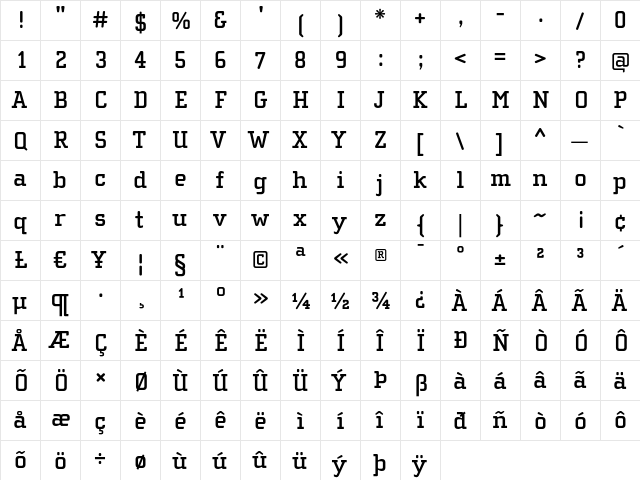
ChollaSlab Bold
Design Context for ChollaSlab Typeface
ChollaSlab combines the readability of serif typography with the visual weight of a slab construction, resulting in a typeface that feels both authoritative and approachable. The heavy weight commands attention and anchors typographic hierarchies.
Suited to magazines, political campaign materials, bold packaging, and any setting where authority matters.
Pro Tip: Use ChollaSlab for headlines and subheadings where its slab serifs can make an impression. It also holds up well in mid-size body copy thanks to its sturdy construction.